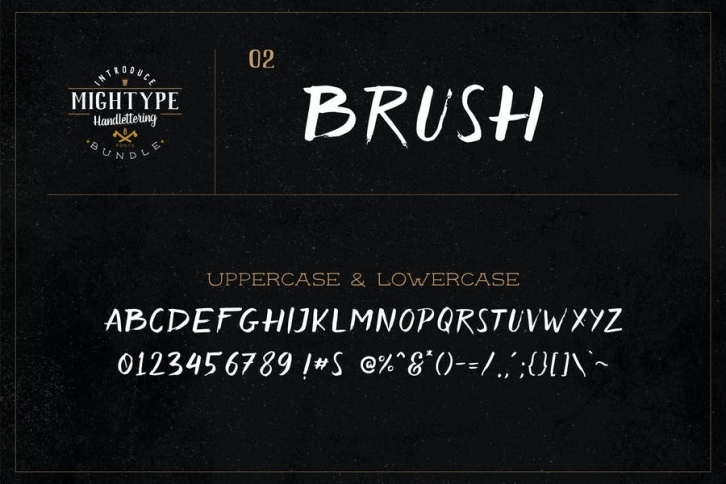
Mightype 02 - Brush FONT Download
Mightype 02 - Brush Font Download
Mightype FontPack Handlettering
Mightype is a Brand New Hand Lettering bundle package with an natural touch of hand. All of the Typeface in Mightype that's inspired by so many combinations letter from the hand letterer artist on instagram. All uniqueness is created by different tools like Brush, Pencil, Drawing Pen, and Marker.
Mightype comes with 8 fonts that will help to complete each other fonts to create a design like Poster, Logo, Clothing, Digital lettering, Wedding Invitation or anything who wants to design with natural touch of hand made. It will be easier for you to create a layout just with this bundle.